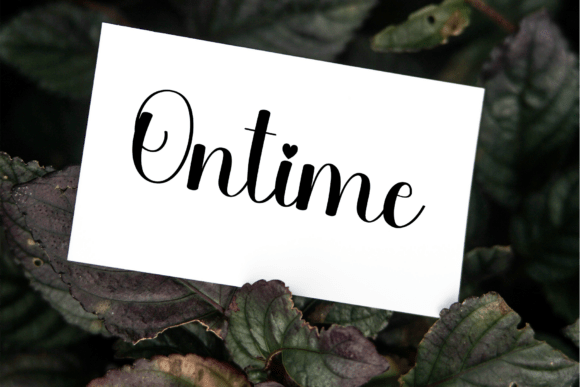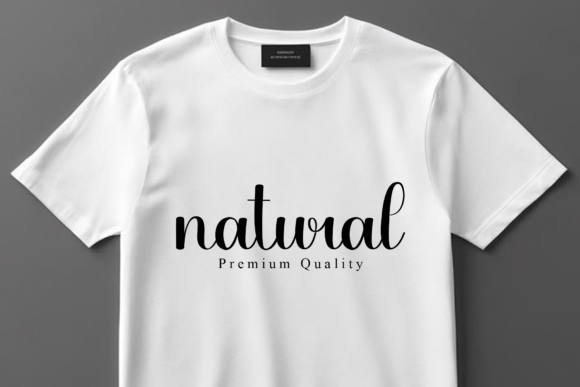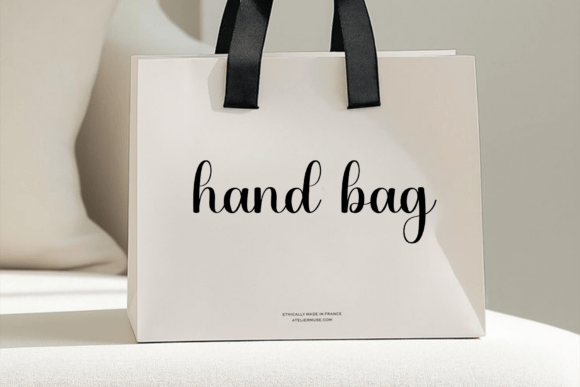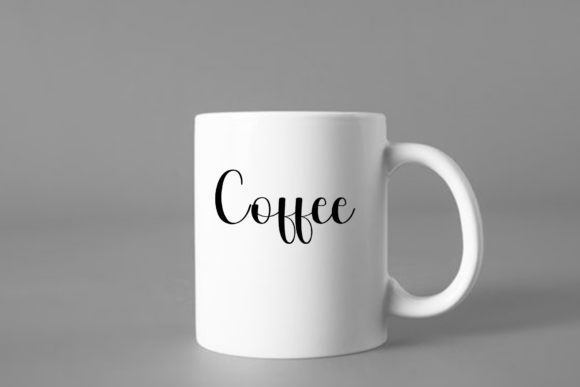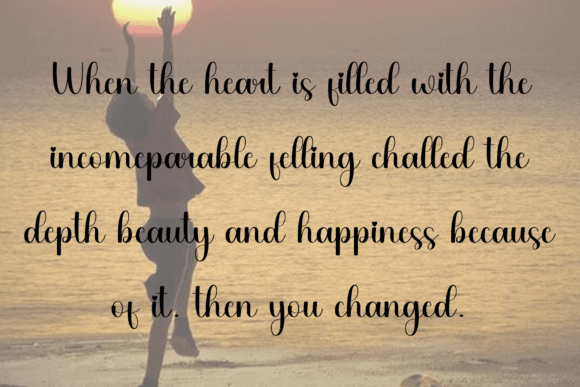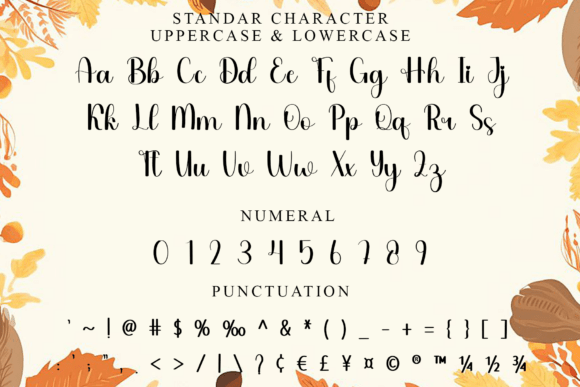
Introducing Beautiful Barbie Font: The Perfect Blend of Fun and Creativity
Are you tired of using the same old fonts for your personal projects, invitations, and social media graphics? Look no further than the Beautiful Barbie Font, a casual and creative font that exudes warmth and friendliness. Its round, playful strokes create a relaxed and approachable feel, perfect for designers and crafters who want to add a fun and unique touch to their designs.
The Charm of Beautiful Barbie Font
The Beautiful Barbie Font is a hand-drawn font that boasts a charming, whimsical aesthetic. Its playful strokes and rounded edges create a sense of warmth and approachability, making it perfect for designs that require a personal touch. Whether you’re creating invitations, social media graphics, or personal projects, this font is sure to add a touch of fun and creativity to your designs.
Key Features of Beautiful Barbie Font
- Hand-Drawn Aesthetic: The font’s hand-drawn aesthetic adds a unique and fun touch to any design, making it perfect for designers and crafters who want to create personalized and eye-catching designs.
- Playful Strokes: The font’s round, playful strokes create a relaxed and approachable feel, making it perfect for designs that require a friendly and approachable tone.
The Beautiful Barbie Font is perfect for designers and crafters who want to add a personal touch to their designs. Whether you’re creating:
- Invitations: Use the Beautiful Barbie Font to create personalized and eye-catching invitations for parties, weddings, and other special occasions.
- Social Media Graphics: Add a fun and unique touch to your social media graphics, such as Facebook posts, Instagram stories, and Twitter headers.
- Personal Projects: Use the Beautiful Barbie Font to create personalized and creative projects, such as handmade cards, scrapbook pages, and journal entries.
Tips for Using Beautiful Barbie Font
Here are some tips for using the Beautiful Barbie Font in your designs:
- Pair with Other Fonts: Pair the Beautiful Barbie Font with other fonts to create a unique and eye-catching design.
- Use in Large Sizes: Use the font in large sizes to create bold and eye-catching headings and titles.